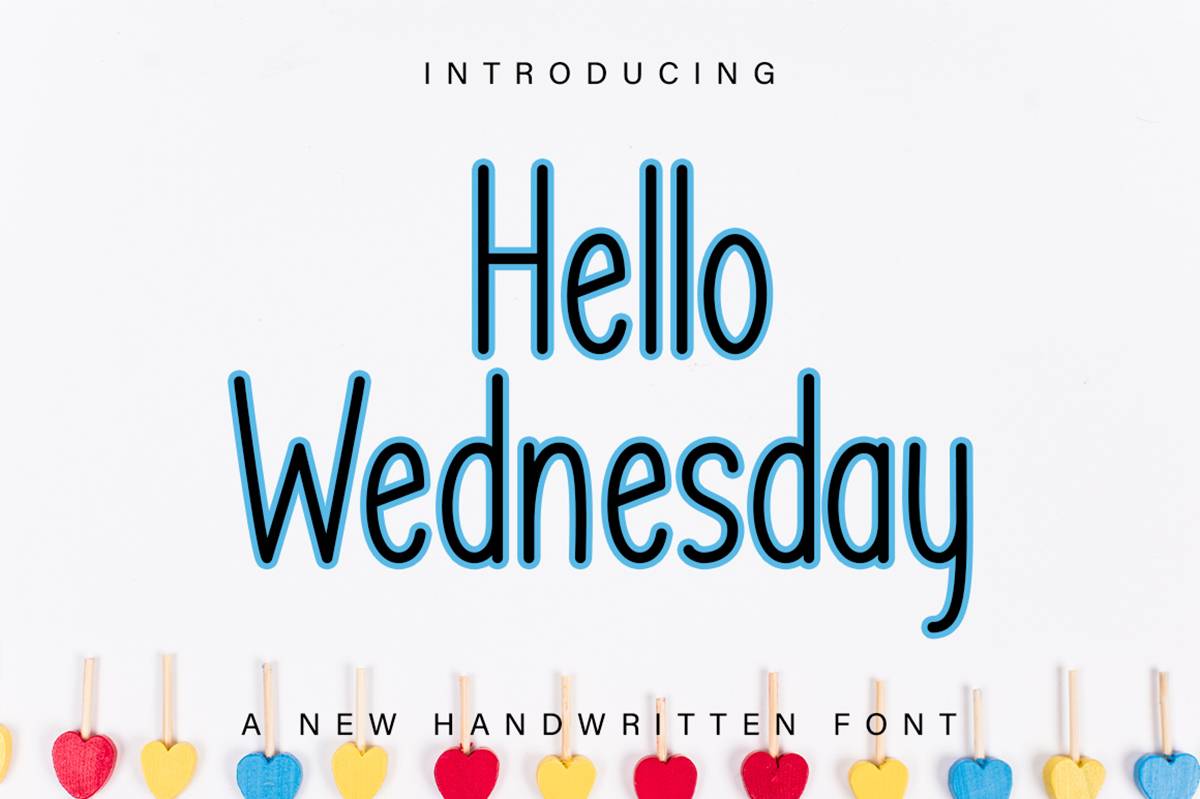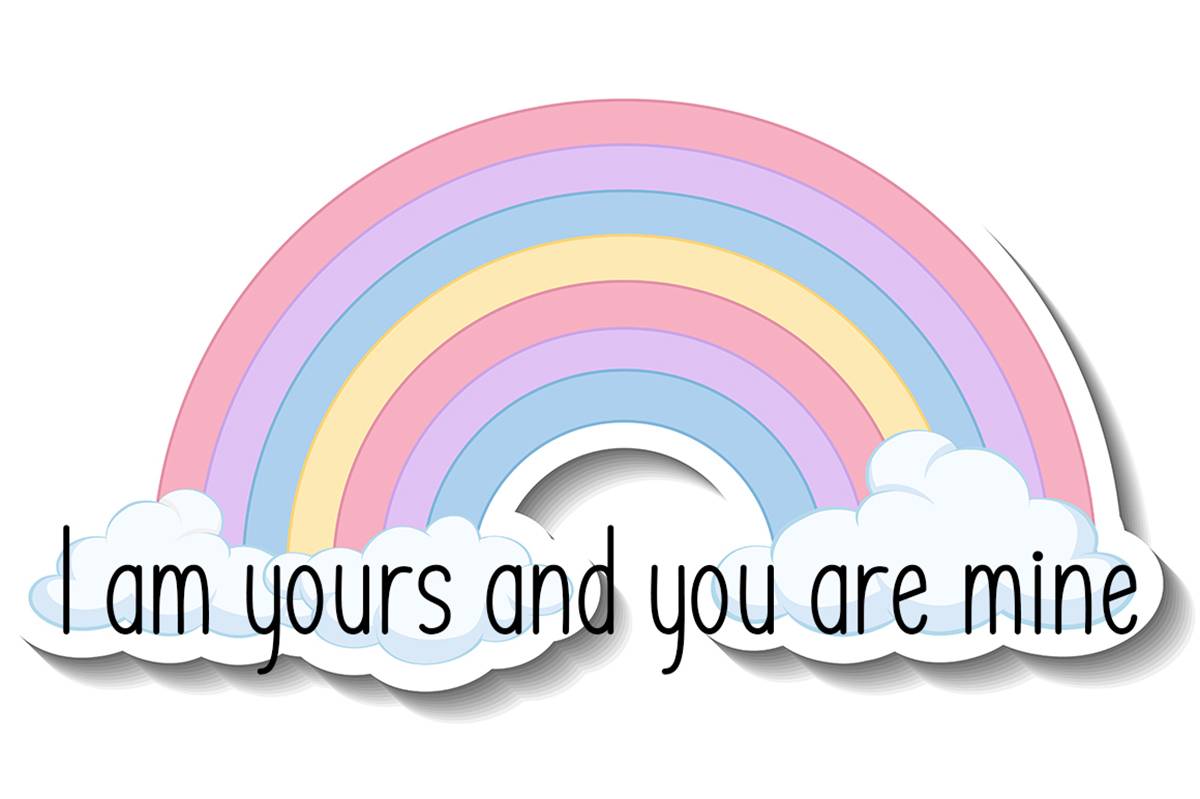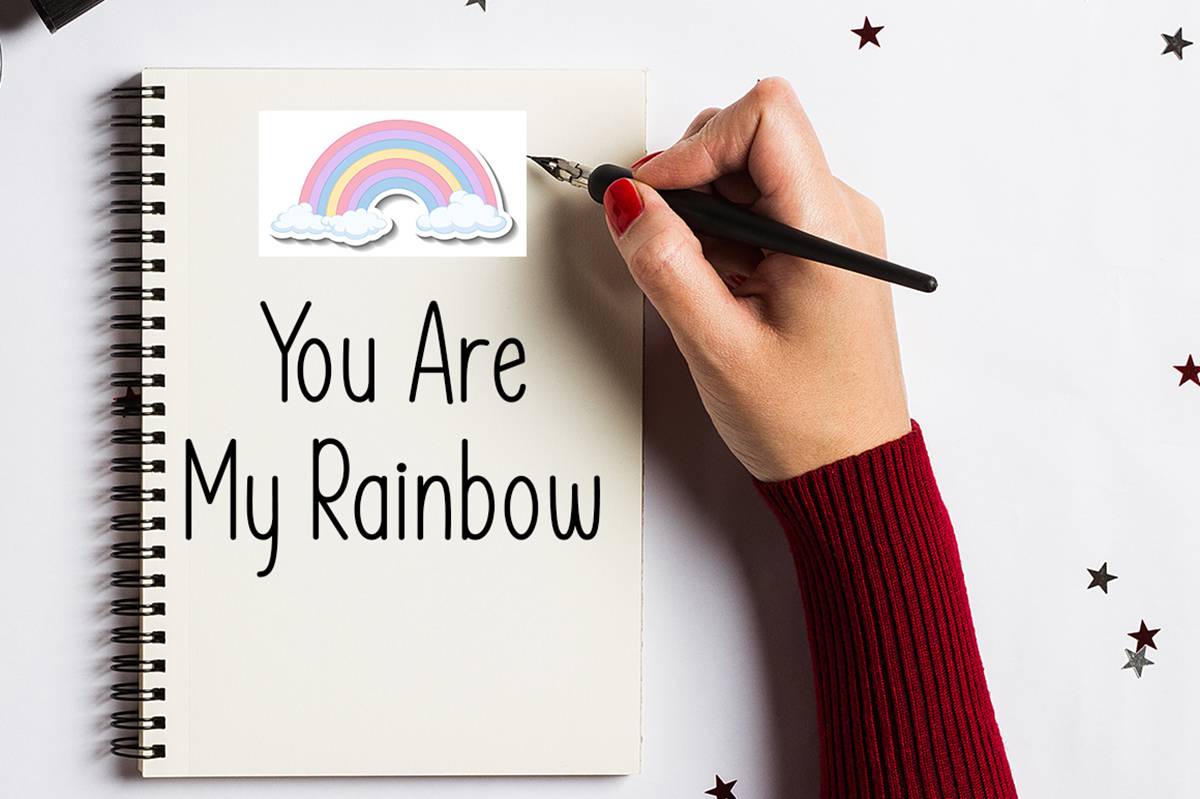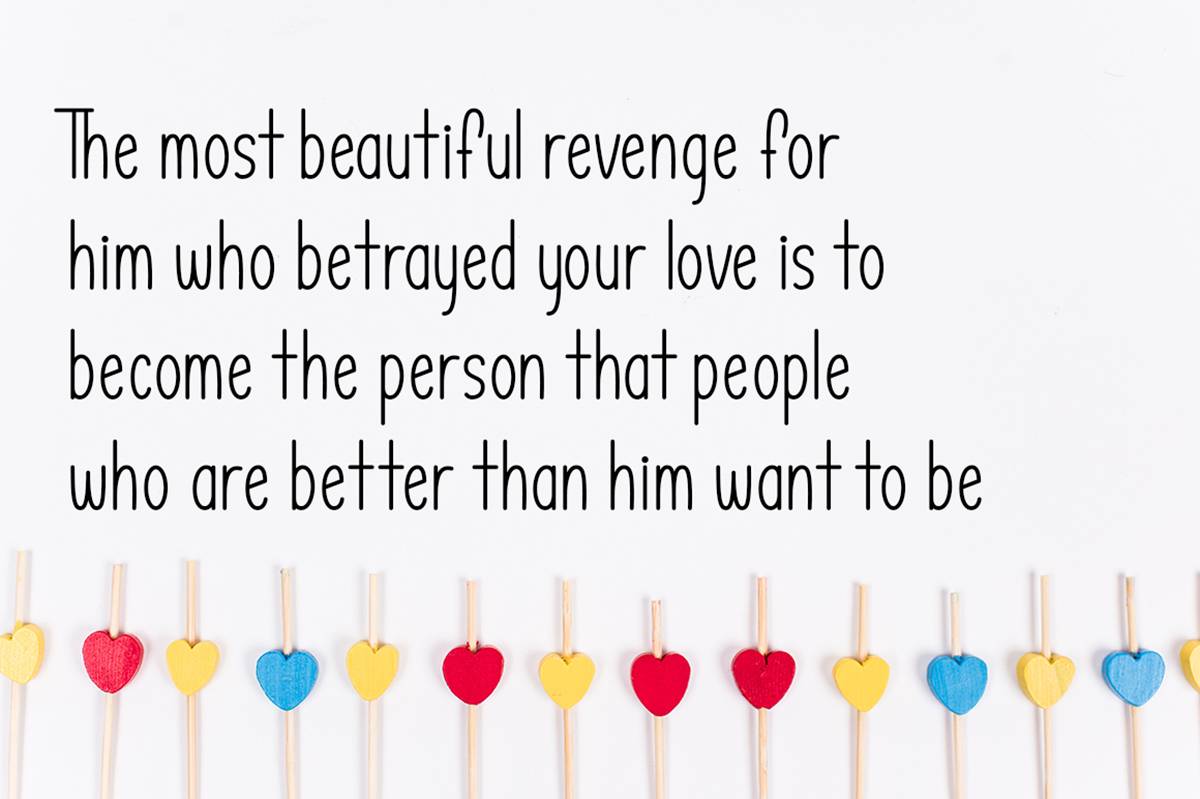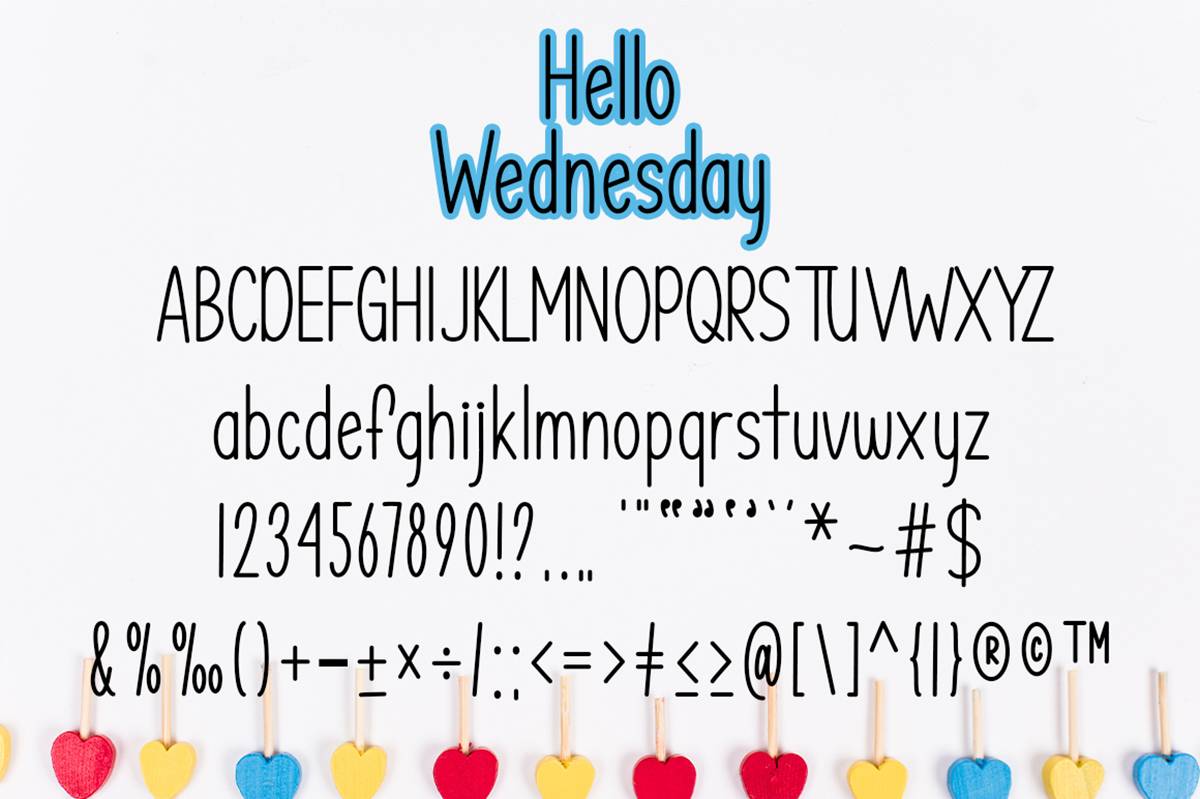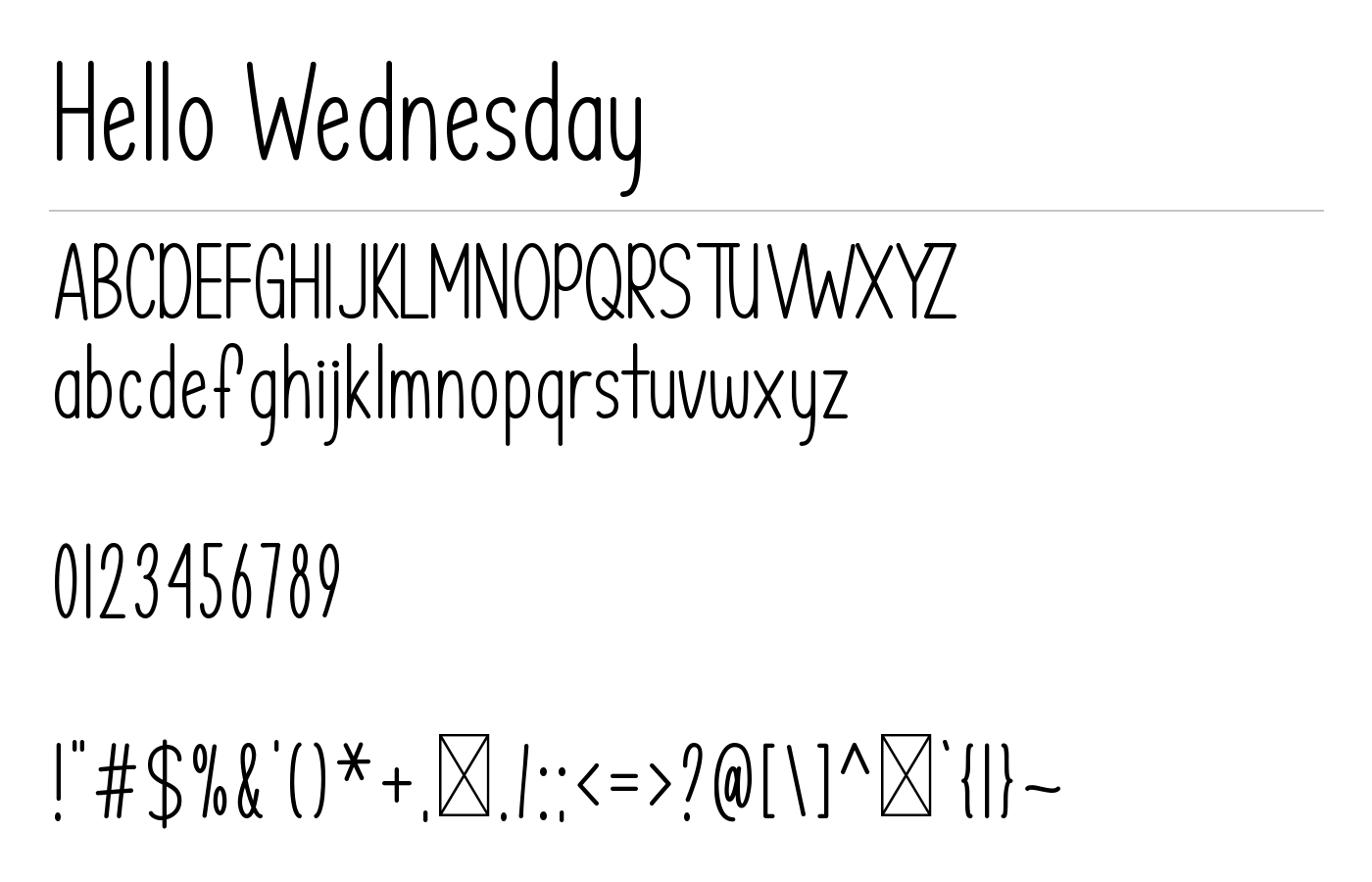
Hello Wednesday is a tall, narrow sans serif font with a playful and casual handwritten feel. Its thin strokes and slightly irregular shapes give it a friendly, approachable character that works well for creative, informal designs like invitations, greeting cards, and quirky branding. This font shines in headlines and short texts where a light, airy, and charming style is desired.
Hello Wednesday Font
About Hello Wednesday Font
| Font family | Hello Wednesday Font |
| Designer | Wahyudi |